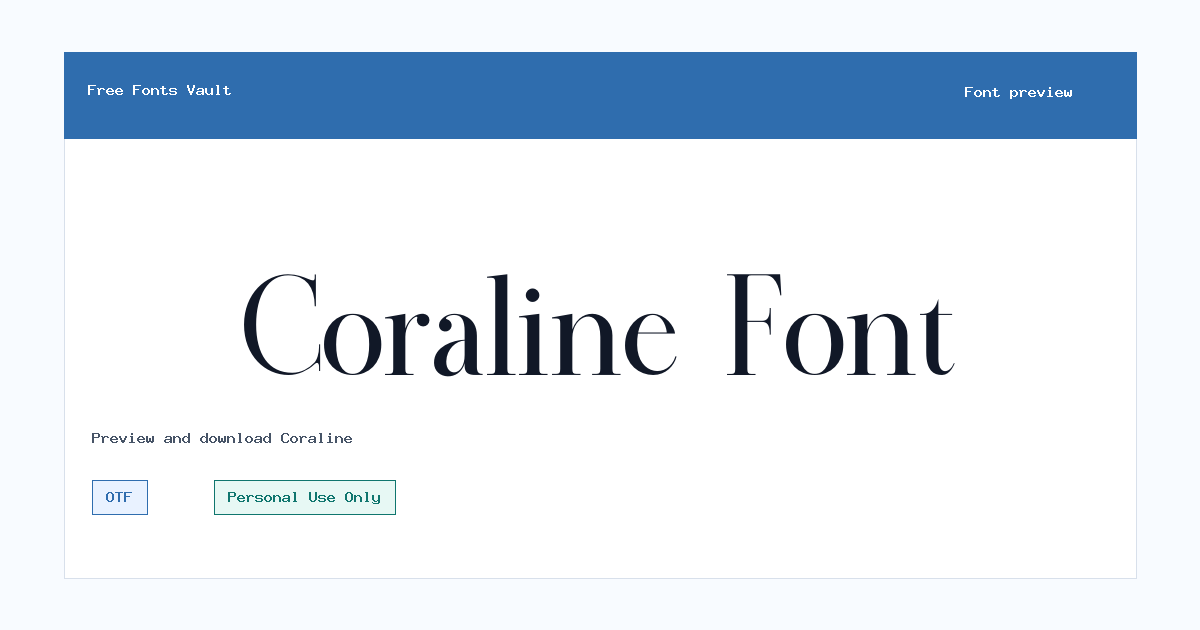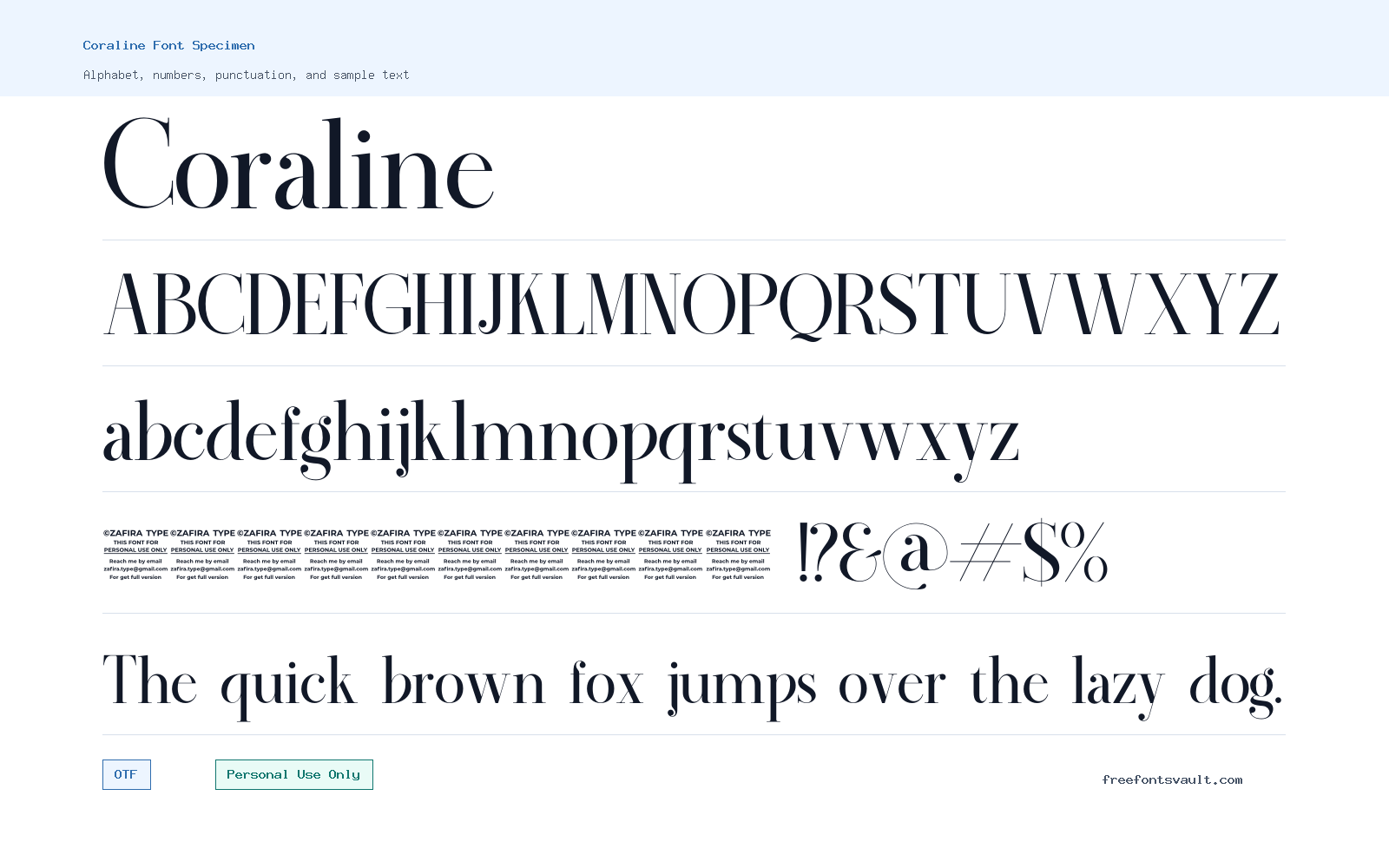
Coraline
Coraline is a refined serif font with strong thick-to-thin contrast, sharp details, and a graceful display feel. It works best when the text has room to breathe, especially in titles, invitations, name designs, and short decorative lines.
About Coraline Font
Coraline has the look of a display serif rather than a plain reading face. The letters are slim in places, fuller in the main strokes, and shaped with crisp terminals that give words a polished, formal tone. In the preview, the uppercase letters feel tall and elegant, while the lowercase letters keep a narrow, stylish rhythm. That makes Coraline a good choice when you want text to feel composed and a little dramatic without using a script font.
Use Coraline for short pieces of text first: headings, quote graphics, event cards, product labels, boutique-style branding mockups, mood boards, and social posts. It can look beautiful at large sizes, but its fine hairlines may become fragile in small text, low-resolution images, or busy backgrounds. Before downloading, type your own words in the font preview and check tricky combinations such as repeated letters, numbers, punctuation, and all-caps layouts. If you need a clean supporting font, pair Coraline with a simple sans serif or a calm book serif so the decorative contrast does not compete with body copy.
- High-contrast serif design suited to display text and elegant headings.
- Best for short text where fine strokes remain visible.
- Works well with simple sans serif pairing fonts for readable layouts.
- Wedding invitations and event title cards
- Elegant logos or wordmark drafts
- Fashion, beauty, or boutique-style graphics
- Quote images and social media headers
- Product packaging mockups and labels
For the best result, use Coraline at medium to large sizes and keep the background simple. Avoid long paragraphs, small captions, or heavy texture behind the text because the thin strokes can lose clarity. Test your exact wording before final export, especially if your design will be printed, cut, embroidered, or compressed for social media.
What type of font is Coraline?
Coraline is a serif display font. It has strong contrast between thick and thin strokes, which makes it better for headings and decorative text than long body copy.
What fonts pair well with Coraline?
Pair it with a clean sans serif for menus, captions, and body text. A simple supporting font helps Coraline stay focused on the main title or display line.